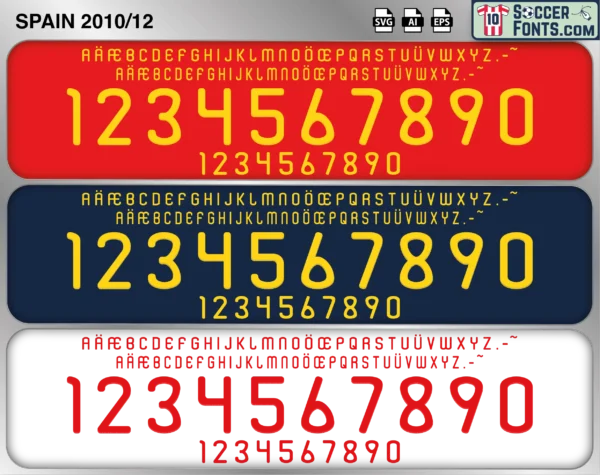
Spain 2010-12 Font
The Spain 2010-12 font is an editable soccer jersey lettering design in vector format inspired by the Spain kit style used during the 2010-12 football seasons. This football font artwork is prepared for football shirt recreations, custom jersey projects, football kit mockups and sports graphic design workflows.
The 2010-12 period saw Spain continue one of the most dominant international football cycles ever recorded. Following their World Cup triumph in South Africa, the national team maintained the core of a legendary generation featuring Xavi Hernández, Andrés Iniesta, Iker Casillas, Sergio Ramos, David Silva, Xabi Alonso and Cesc Fàbregas. Spain entered UEFA EURO 2012 as defending European champions and remained committed to the possession-based football that had brought unprecedented success. The team progressed confidently through the tournament and delivered one of the greatest performances in a major final by defeating Italy 4-0.
The Spain 2010-12 font became associated with the completion of an extraordinary international treble consisting of UEFA EURO 2008, the 2010 FIFA World Cup and UEFA EURO 2012. Spain shirts from this era remain among the most celebrated in football history because of their connection with a team that redefined international football through technical quality, control and consistency. The Spain 2010-12 font reflects the height of Spain’s golden generation and a period that continues to influence football culture, coaching philosophies and discussions about the greatest national teams of all time.